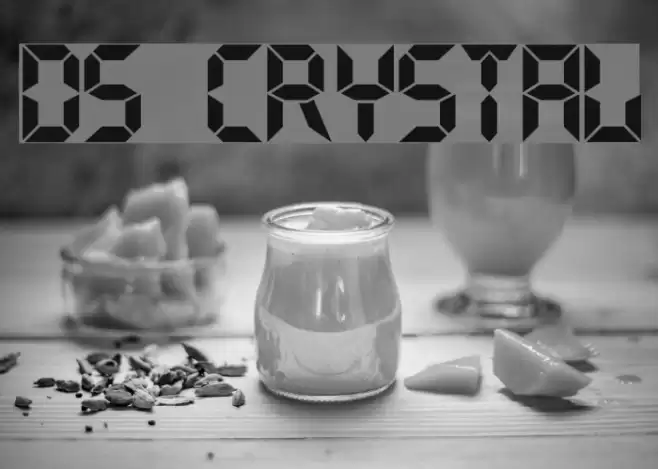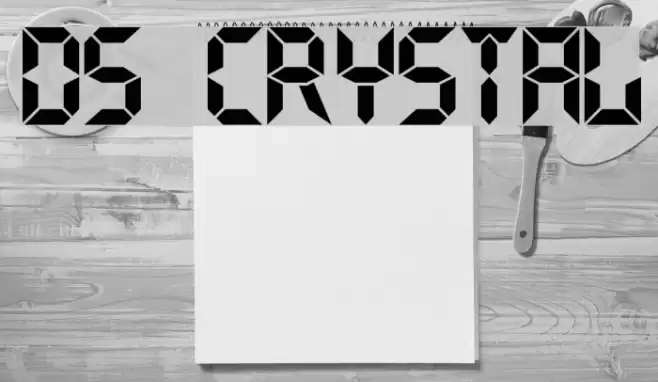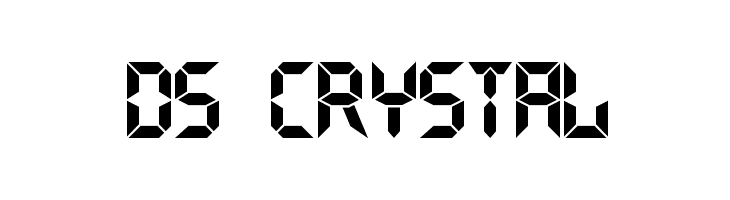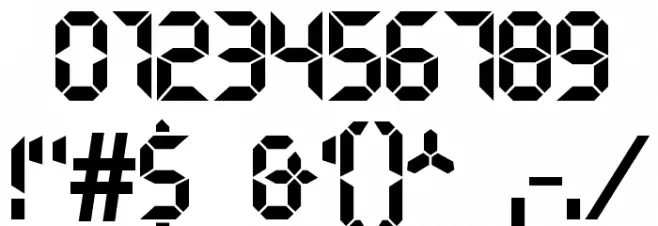
DS Crystal Font
DS Crystal Description
This font features a geometric and angular design, characterized by its use of sharp, crystalline shapes to form each letter and number. The style is bold and striking, with each character composed of multiple facets that give it a three-dimensional appearance. The uppercase and lowercase letters maintain a consistent structure, emphasizing symmetry and precision. Numbers and special characters follow the same design principles, ensuring a cohesive look across all elements. The font's unique aesthetic makes it ideal for projects that require a modern and edgy feel.
A geometric, angular font with a crystalline, three-dimensional appearance from Dotted fonts.
- Proposed Projects: Ideal for futuristic designs, tech branding, video game titles, and sci-fi themed projects.